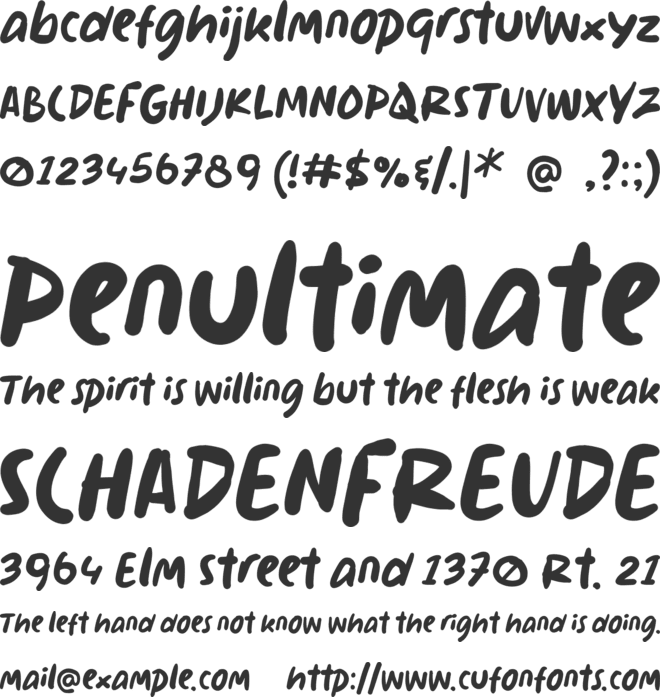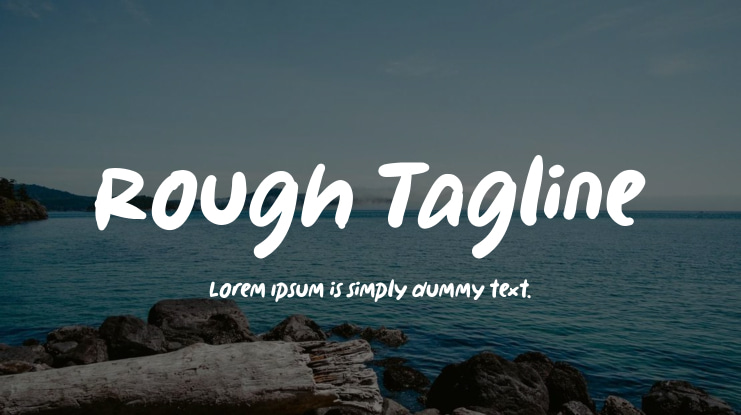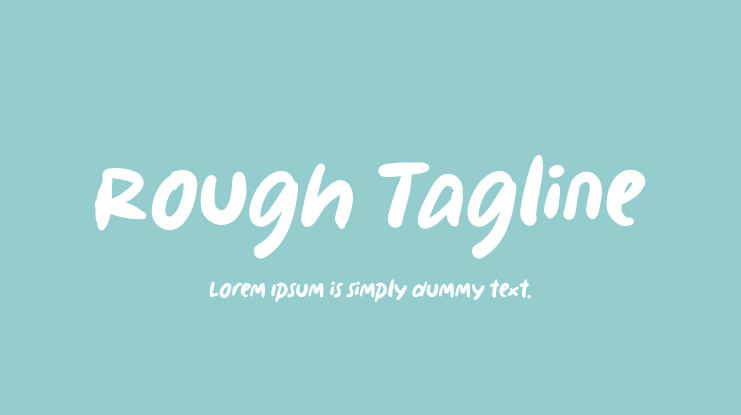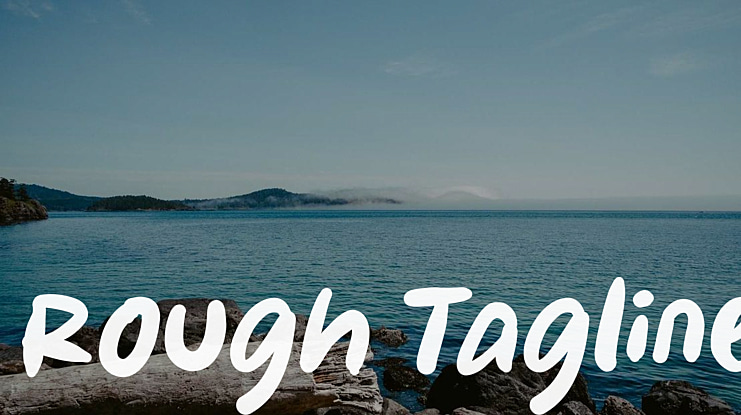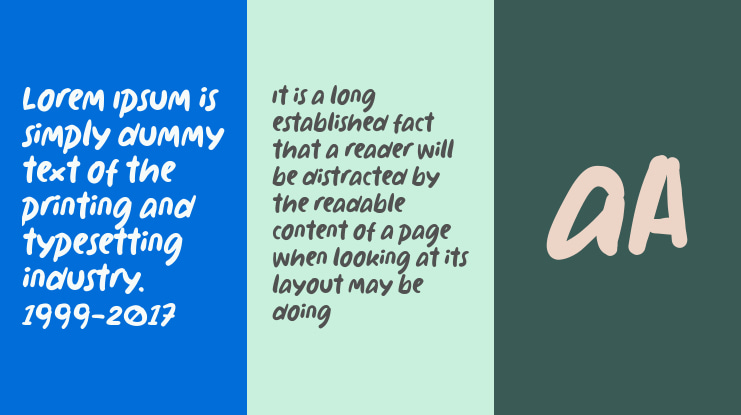
Introducing Rough Tagline - a lively and vibrant handwritten display font that will add a unique touch to your projects. This bold and playful typeface embodies the characteristics of ink and marker strokes, bringing an authentic and raw feel to your designs. Whether you are creating digital posters, social media graphics, slogans, or taglines, Rough Tagline will give your creative endeavors a modern and dynamic flair.
The confident and expressive strokes of this font make it suitable for both casual and professional contexts. It is perfect for adding a dose of creativity to your logo designs or infusing a playful tone into your social media posts. Additionally, Rough Tagline is compatible with iPad and GoodNotes, allowing you to effortlessly bring your ideas to life with its versatile and charming attributes.
Rough Tagline Display Font